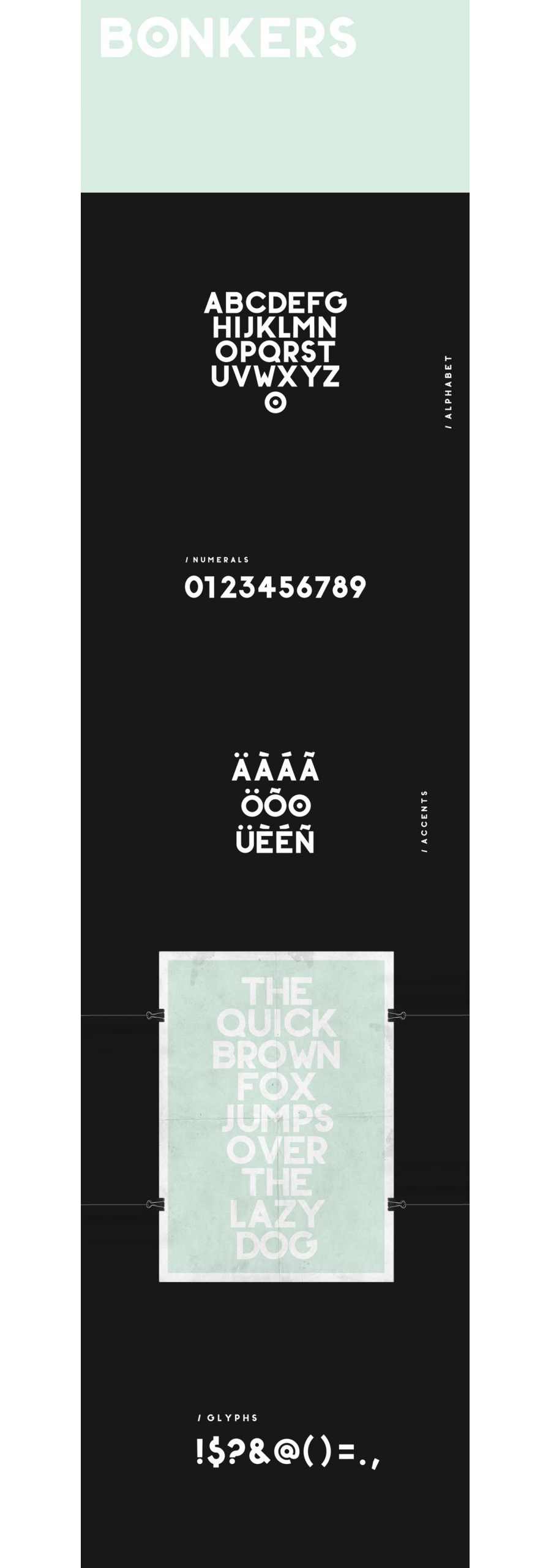
Bonkers Free Font was designed for headlines, poster, title, etc. It’s free for personal use. Commercial options and lowercase will follow in the future.
Bonkers Free Font